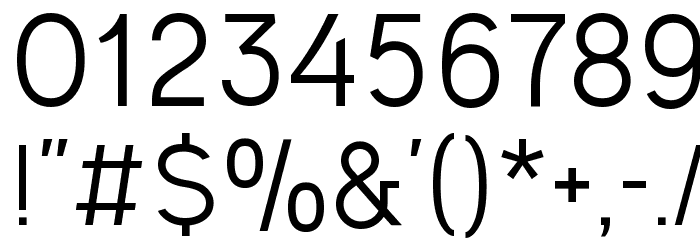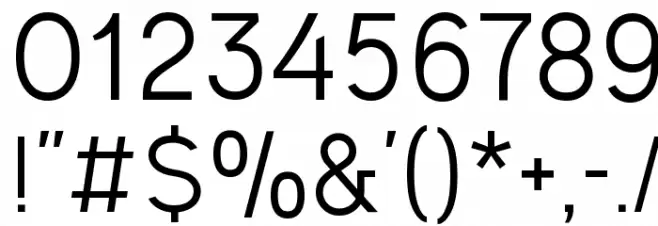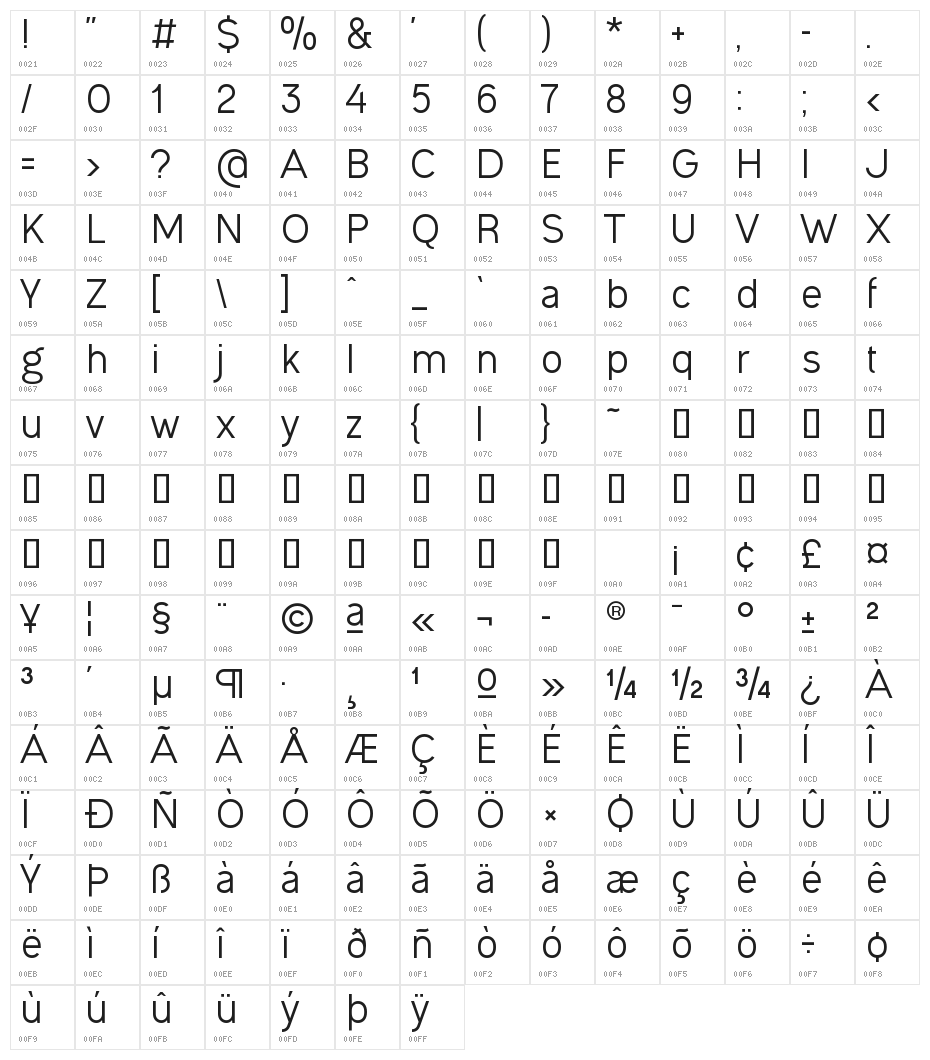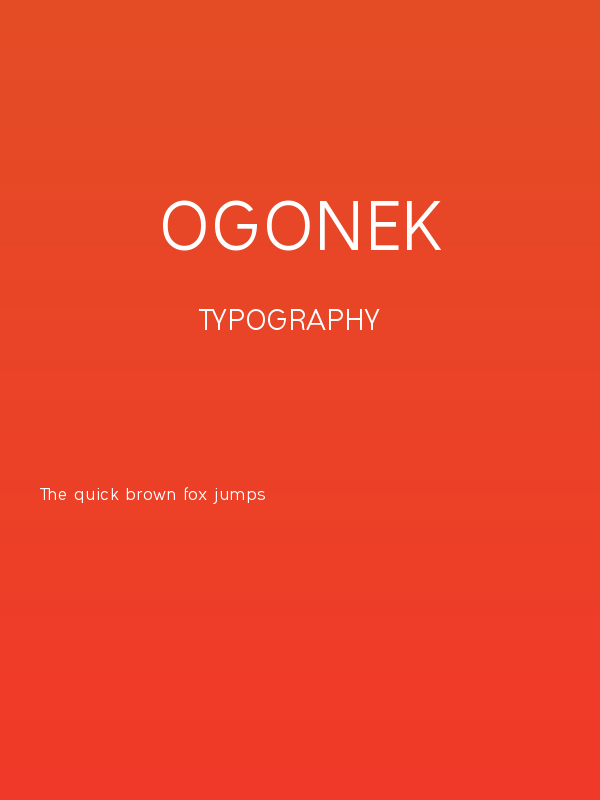
Ogonek Font
Ogonek Description
This font features a clean and modern sans-serif design, characterized by its simplicity and readability. The letters are uniform in stroke width, providing a balanced and harmonious appearance. The uppercase and lowercase letters are well-proportioned, with a slight geometric influence that adds to its contemporary feel. The numerals are clear and distinct, making them easily legible. Special characters are included, maintaining the same clean lines and modern aesthetic. This font is versatile, suitable for a wide range of applications from digital to print.
| Proposed Projects | Ideal for web design, corporate branding, user interfaces, and print media. |